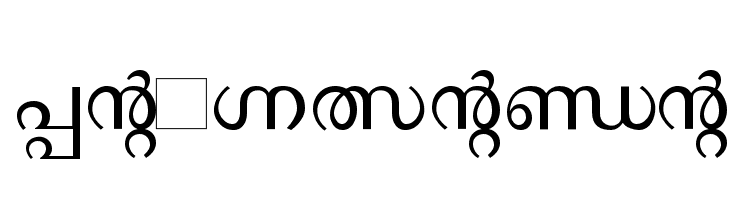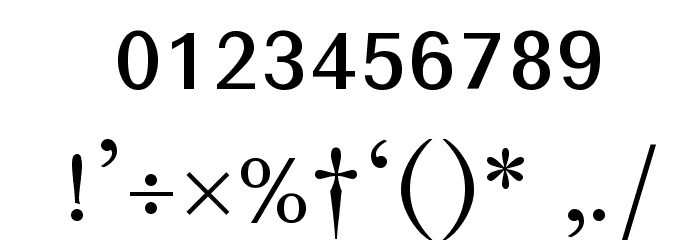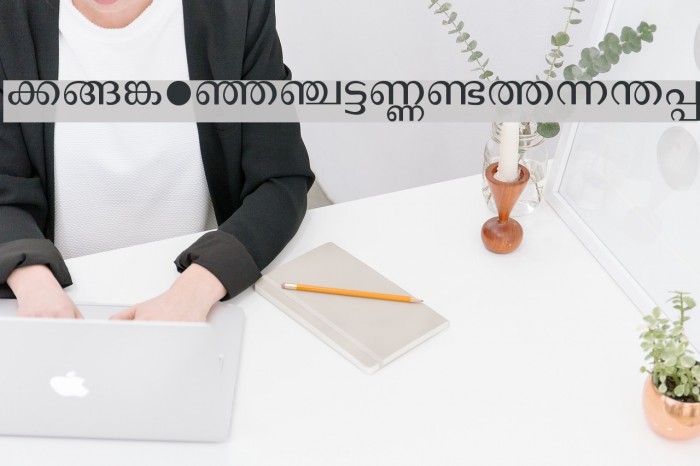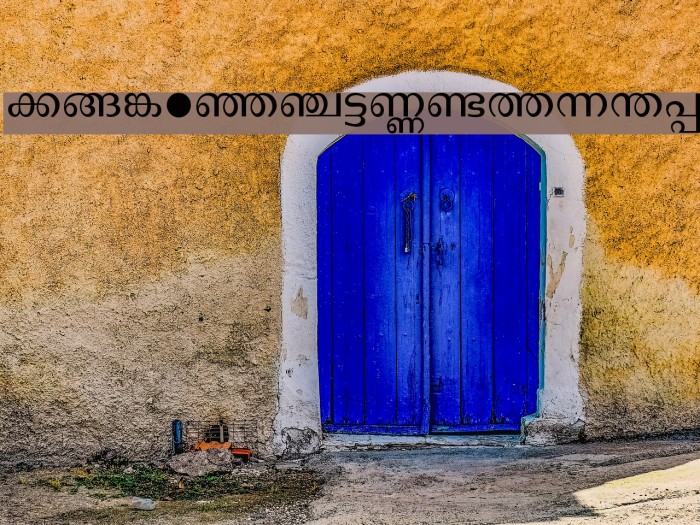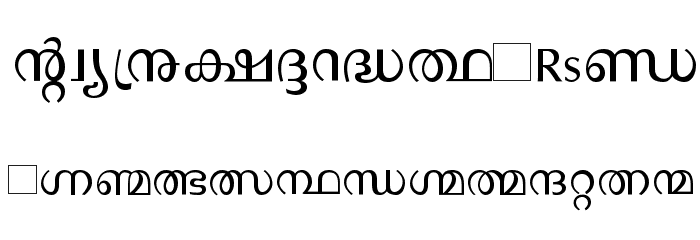
Manorama Font
Manorama Description
This font features a clean and modern design, characterized by its clear and legible letterforms. The characters exhibit a balanced structure with smooth curves and consistent line weights, making it suitable for both digital and print media. The numerals are distinct and easy to read, while the special characters are well-integrated into the overall design. The font maintains a harmonious appearance, ensuring readability across various sizes and applications.
A clean, modern font with balanced letterforms and smooth curves from Uncategorized fonts.
- Proposed Projects: Ideal for use in digital interfaces, print media, branding, and signage due to its clarity and modern aesthetic.